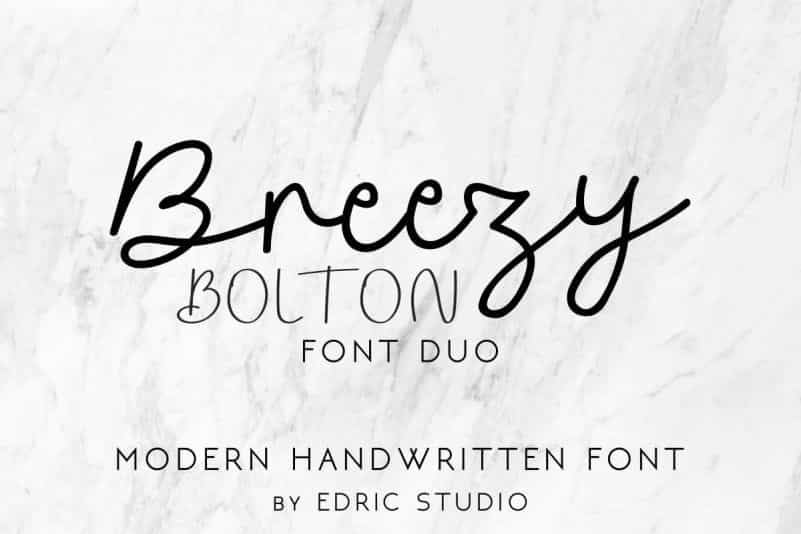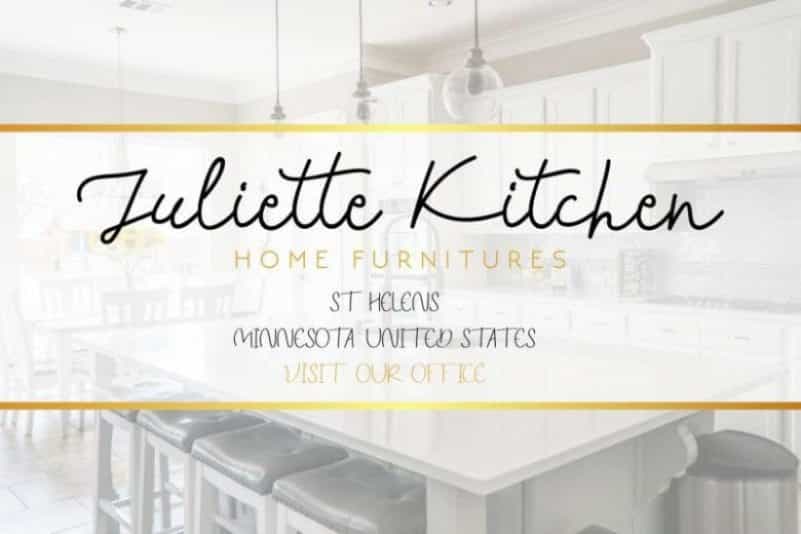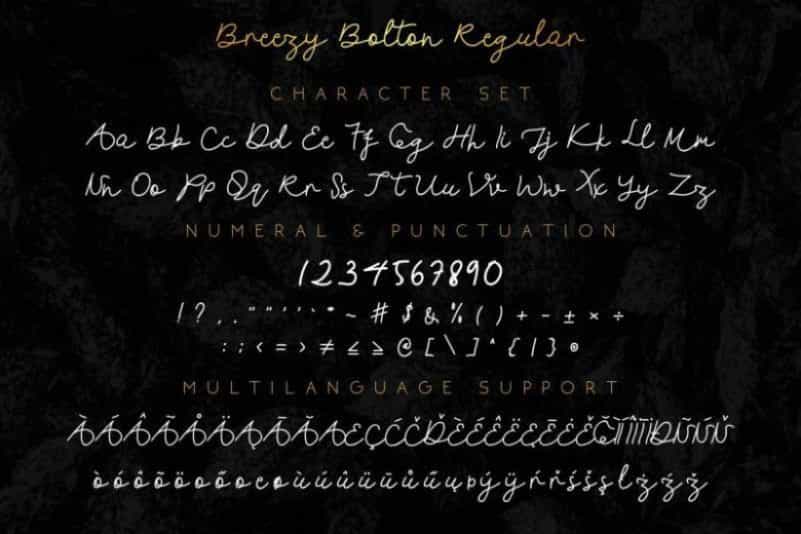
Discover Breezy Bolton Script Font Duo, part of the Calligraphy Handwritten collection—a versatile and unique font perfect for adding a personal touch to your projects. Download it for free and enjoy crafting designs with style, from invitations to social media posts. This font is available exclusively for personal use, giving you the freedom to create without limits. Unlock your creativity with Breezy Bolton Script Font Duo today!